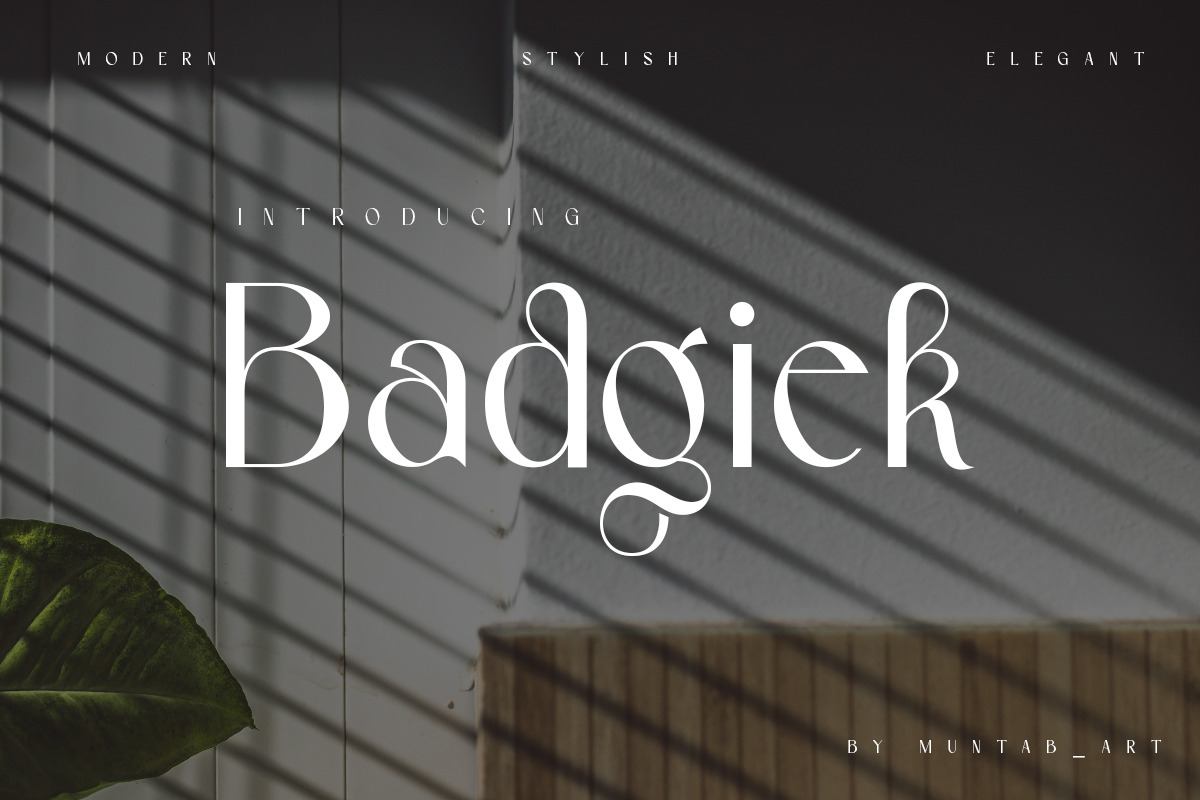
Badgiek | Modern Stylish Font Free Download is a sleek and fashion-forward typeface designed to bring a touch of modern luxury to your designs. With its clean lines, elegant curves, and high-contrast details, this font is perfect for branding, editorial layouts, logos, beauty packaging, and social media graphics that need a contemporary, stylish look.
Badgiek | Modern Stylish Font Free Download stands out with its minimalist sophistication and sharp, professional finish—making it ideal for high-end fashion, lifestyle, and creative industries. Its versatile letterforms work beautifully in both display and subtitle settings, ensuring your message is both clear and captivating.